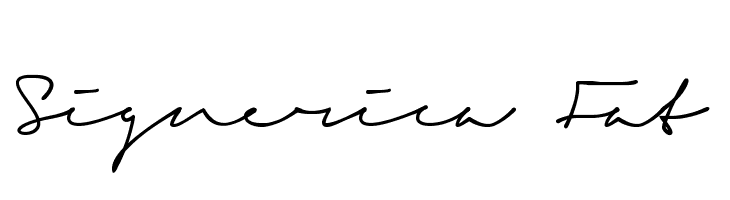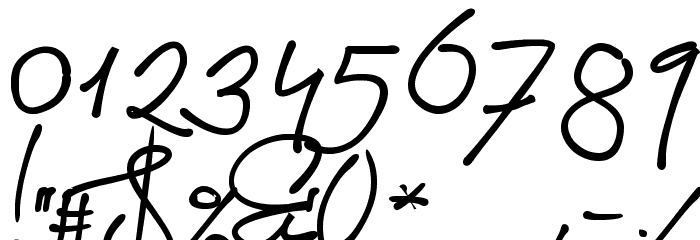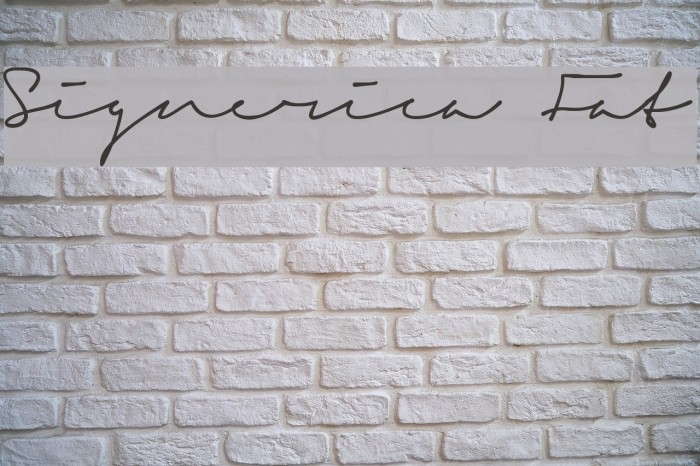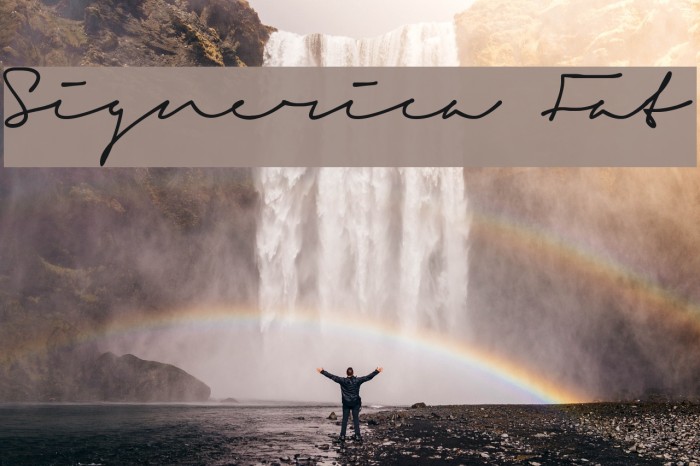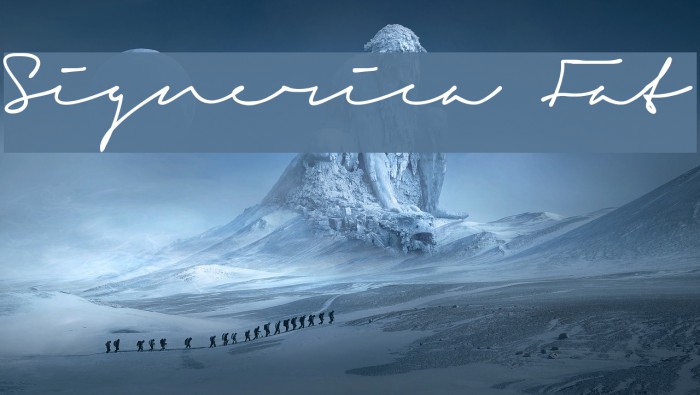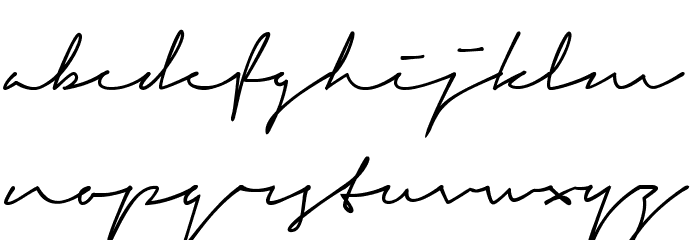
Signerica Fat Font
Signerica Fat Description
This font exhibits a fluid and elegant handwritten style, characterized by its smooth, flowing lines and cursive script. The uppercase and lowercase letters are seamlessly connected, creating a natural and organic appearance. The strokes are moderately thick, providing a bold presence while maintaining a graceful aesthetic. The numerals and special characters are crafted with the same attention to detail, ensuring consistency across all glyphs. This font's design is reminiscent of personal handwriting, making it ideal for projects that require a personal touch or a sense of authenticity.
A fluid, elegant handwritten script with bold, flowing lines from Handwritten fonts.
- Proposed Projects: Ideal for wedding invitations, personal branding, greeting cards, and any project requiring a personal, elegant touch.
- Use Case: Logos, Invitations, Personal Branding